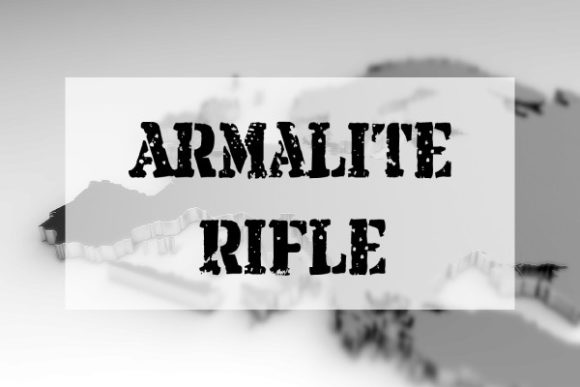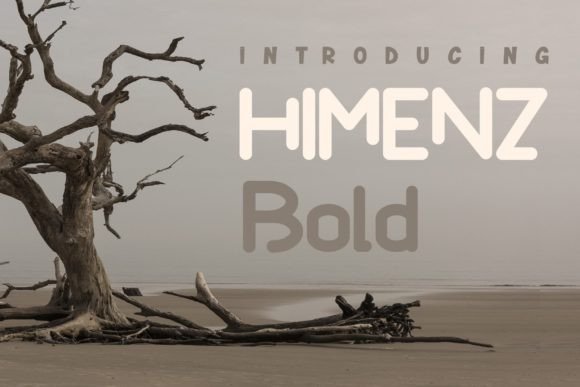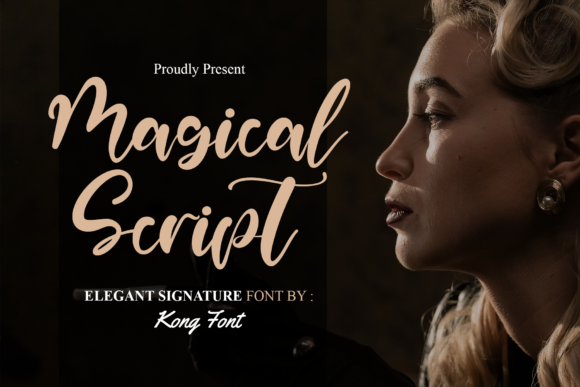
22 Bubble Fonts for Canva and How to Upload Them
Canva ships with a handful of rounded display faces, and everyone uses the same three. Uploading your own is the fastest way to stop your graphics looking like every other template, and it takes about a minute. This guide covers the upload process, what to do when a font does not appear, how to pair it properly, and twenty-two bubble fonts for Canva worth adding to your brand kit.
22 Bubble Fonts for Canva
Each of these uploads cleanly and holds up at the sizes Canva graphics usually get viewed at.
Watercolor bubble font
1. Watercolor
Watercolor font is a realistic watercolor texture brush stroke Opentype SVG Color font.With realistic watercolor texture, you can add this font to any texture so that it will see through and match with the background texture.It will look fantastic on all your project designs, including t-shirt designs, mug designs, digital designs, crafts, cards, and any projects!Also, you will get 5 sets of Color PNG Transparent in the bonus files!
2. Retro Bundle Collection
3. Preppy Writing
Preppy Writing is a tall, skinny handwritten font with a quirky prep-school twist.Its bubbly yet structured style gives off a trendy, teen-approved vibe – perfect for t-shirts, journal headers, sticker designs, school merch, and planner pages.
4. Himenz
Himenz is a modern and beautifully rounded display font. It’s great for crafters and designers. Free download.
5. Armalite Rifle
Armalite Rifle is a beautiful display font that will enhance your craft with its old school looks and amazing first impression. Free download.
6. Magical Script
Magical Script is a modern and playful script font. It’s great for crafters and designers. Free download.
7. Icbmss
Icbm ss-20 is a interesting display font that will help your craft stand out among it’s competition. Free download.
8. Purple Magic
Purple Magic – 3D SVG Font Hand-drawn chubby font with 2 styles namely (3d svg and regular).
9. Tallcraft
Introducing TallCraft – a contemporary display font, meticulously handcrafted and inspired by the buoyancy of tall, playful letterforms.
10. Jennies House
Jennies House is a playful handcrafted font duo that perfectly blends cheerful charm with cozy nostalgia.
11. Simple Tumbler
Simple Tumbler a modern and friendly sans-serif font, is a delightful blend of whimsy and clarity.
12. Sourced
Sourced is a towering, robust, and beautifully stylized modern condensed sans serif font tailored for precise, high-impact branding and commercial craft design.